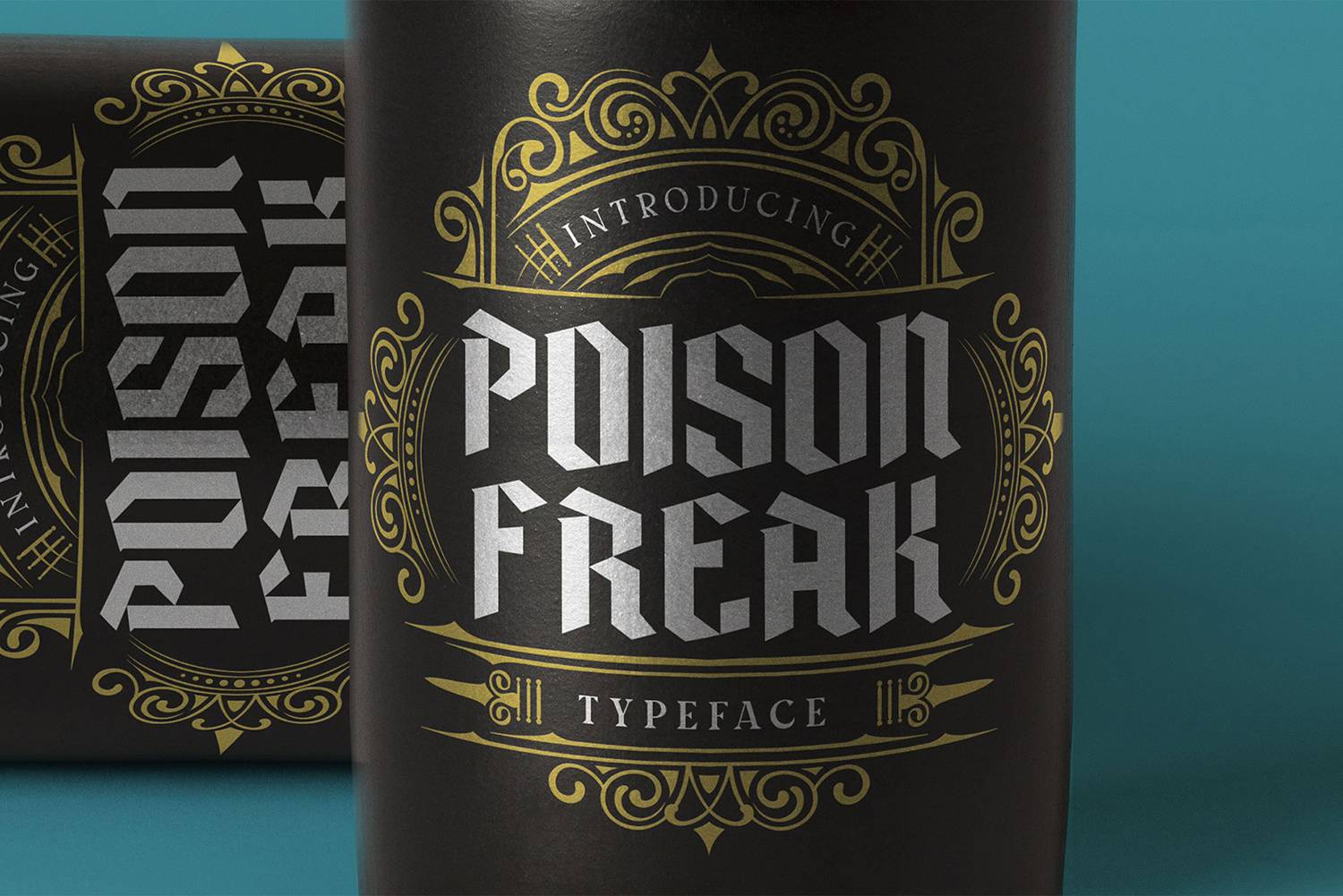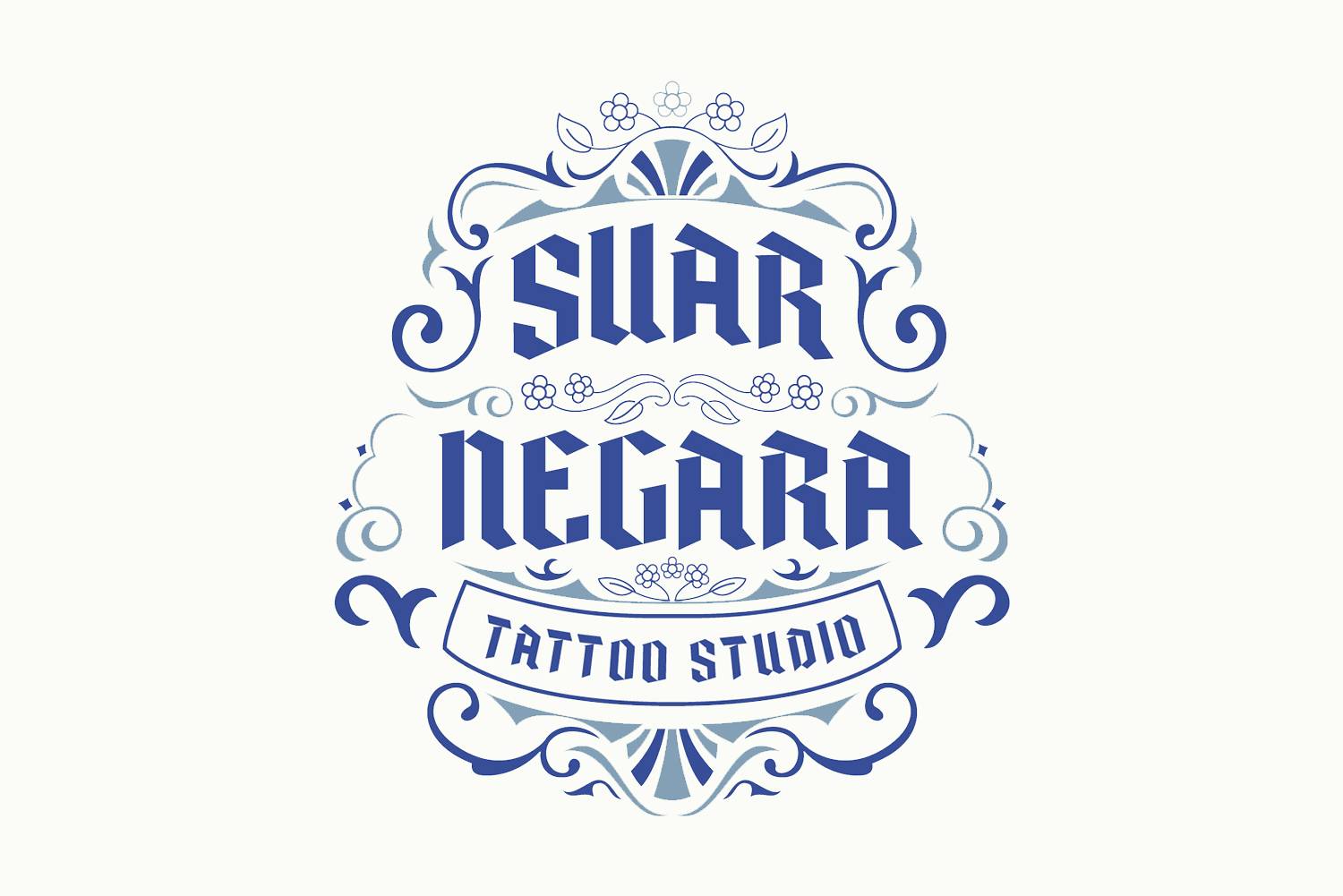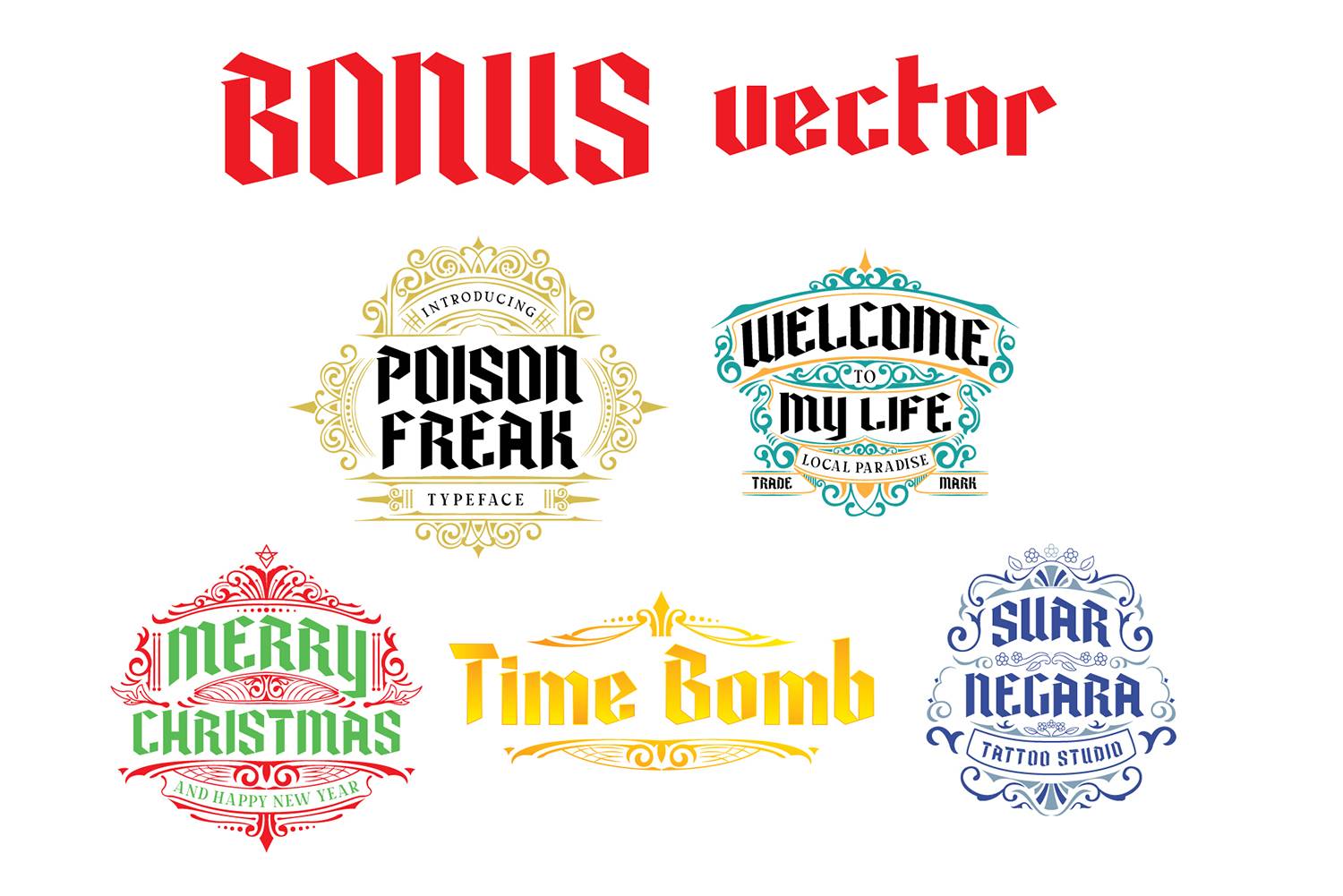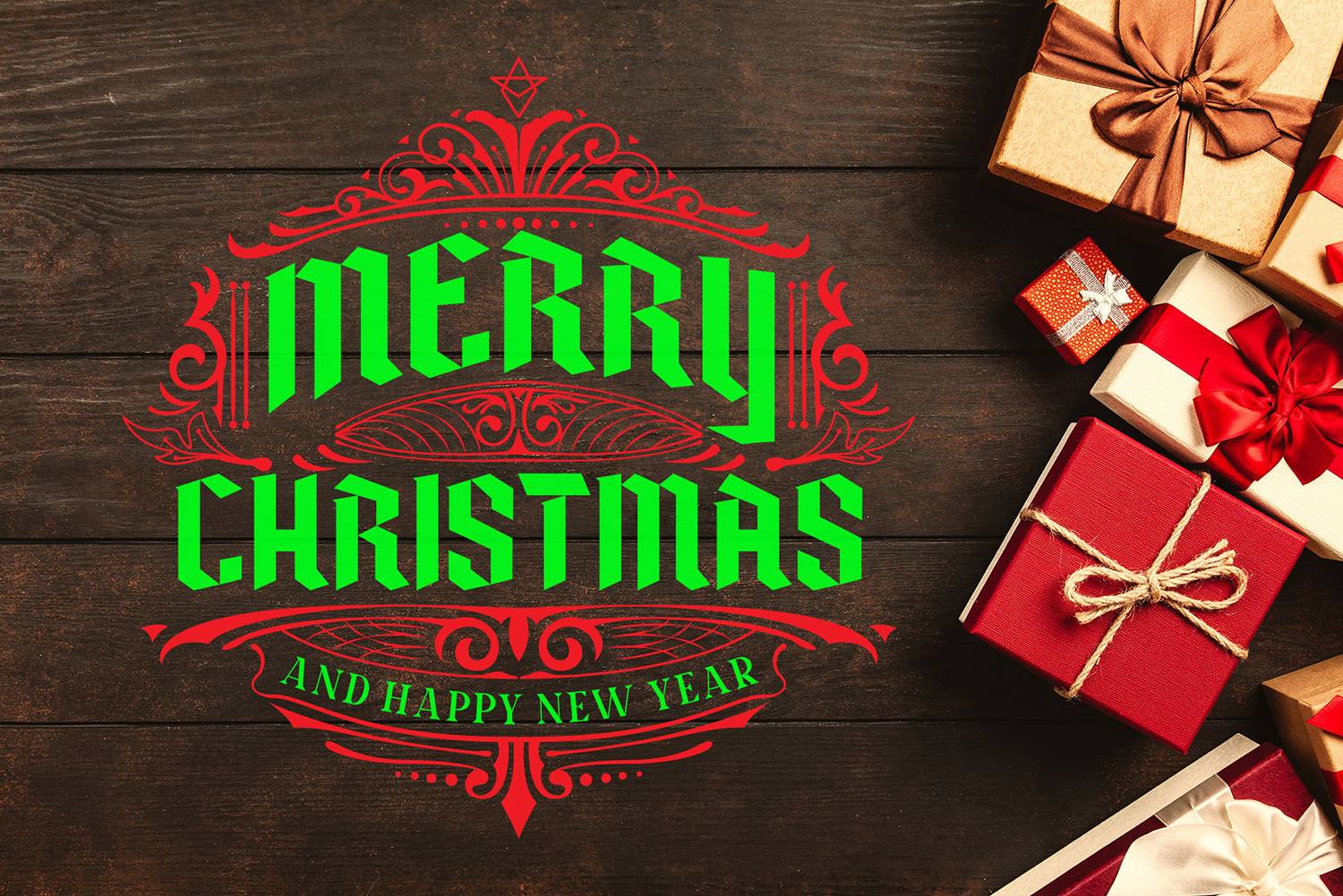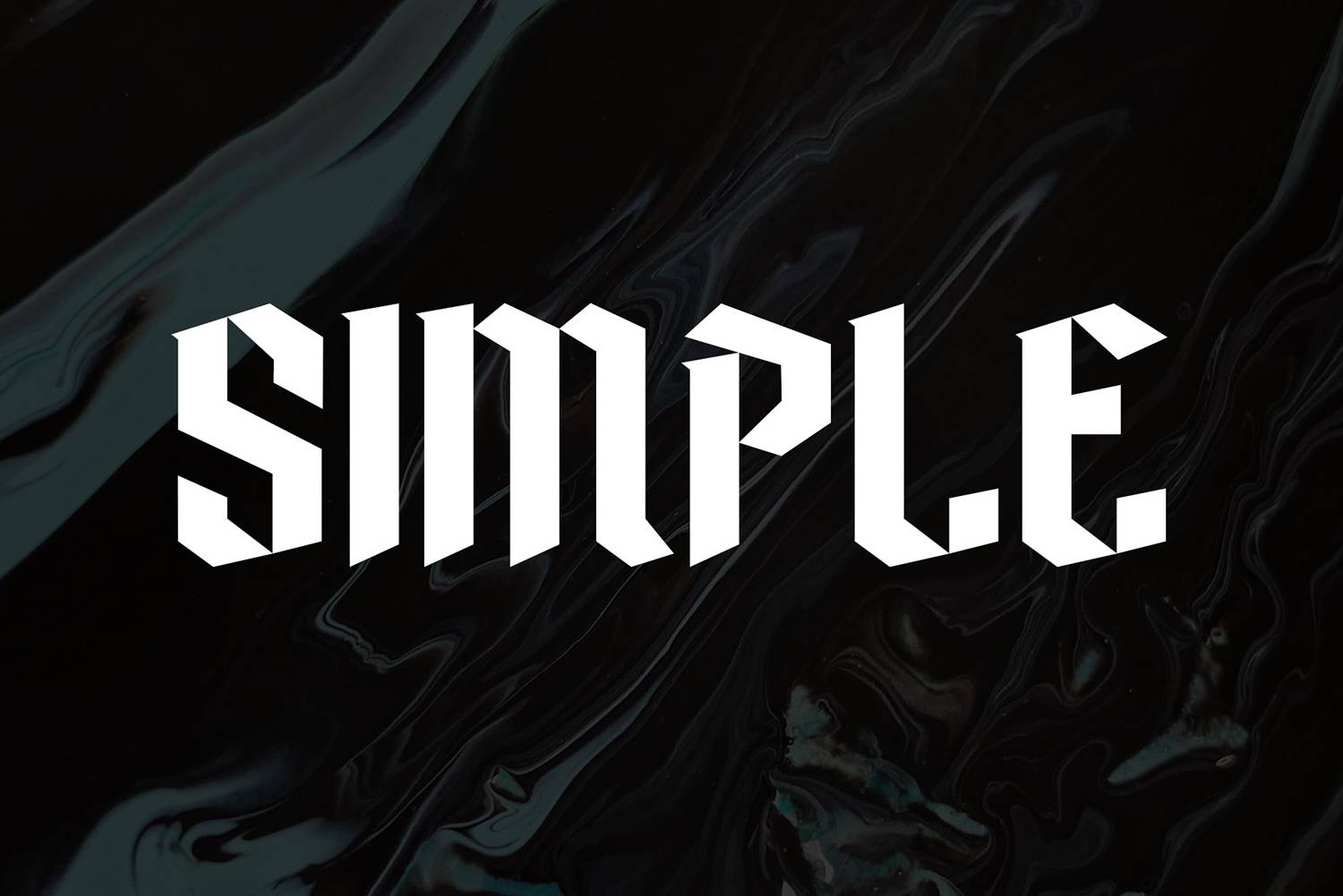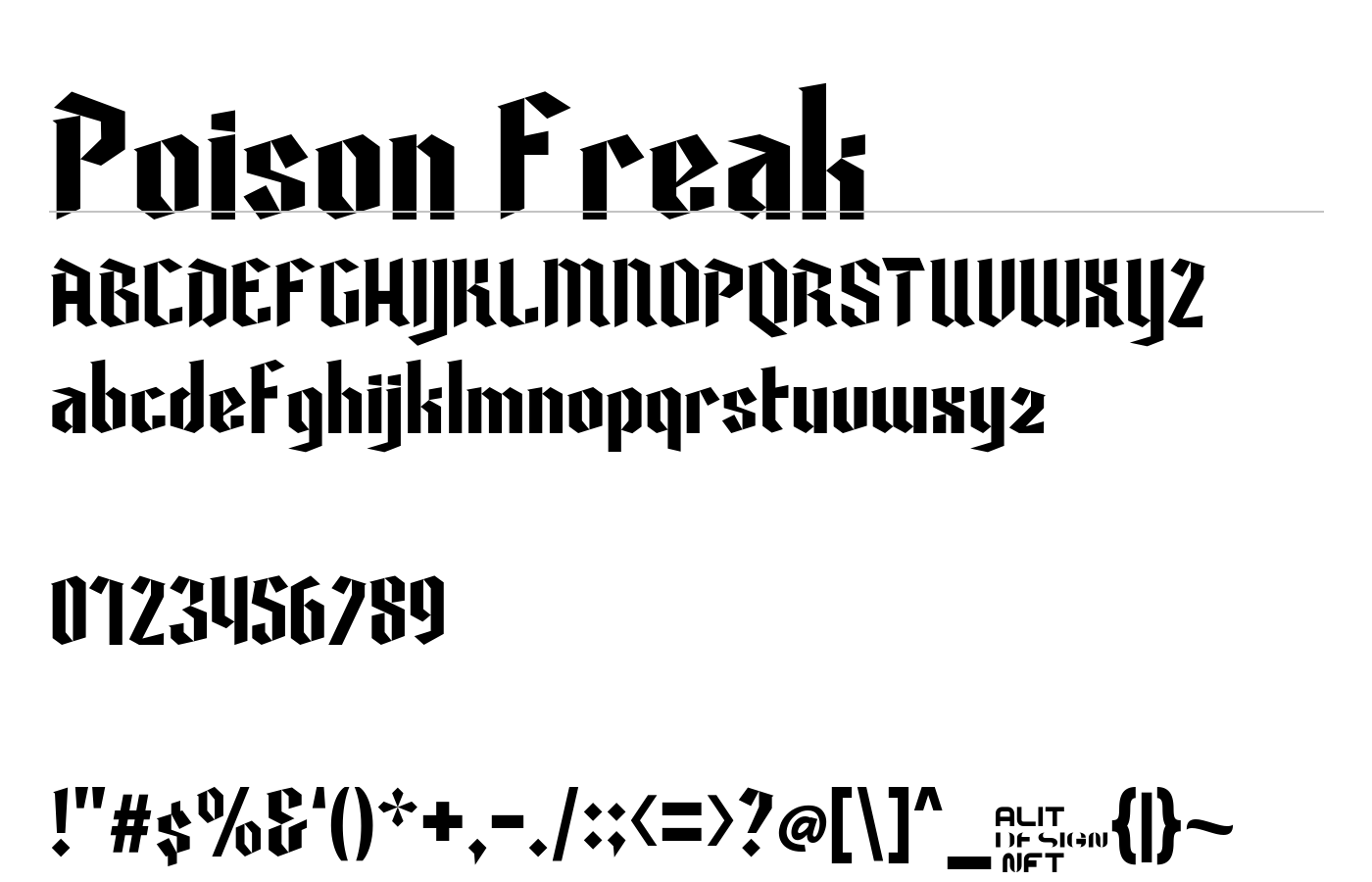
Poison Freak is a bold, condensed blackletter-style font with sharp, angular strokes and high contrast between thick and thin lines, giving it a dramatic and edgy appearance. Its gothic-inspired letterforms and tight spacing make it perfect for creating striking headlines, logos, or designs that need a dark, mysterious, or rebellious vibe. This font works best in creative projects like posters, branding for alternative fashion, music, or Halloween-themed visuals where strong personality and atmosphere are key.
Poison Freak Font
About Poison Freak Font
| Font family | Poison Freak Font |
| Release date | 2020-11-14 |
| Designer | Alit Suarnegara |